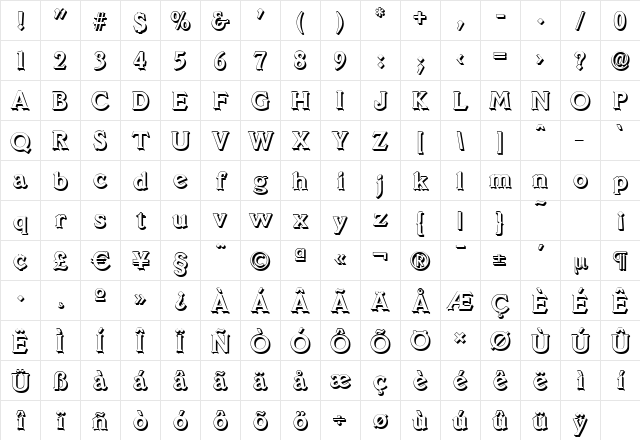
VeracruzShadow Bold
VeracruzShadow Family
Complete VeracruzShadow Bold glyph index. Displaying only characters natively supported by VeracruzShadow Bold font.
Design Context for VeracruzShadow
VeracruzShadow is built around its visual character rather than neutral utility - its distinctive forms are designed to make an impression at display sizes. Its bold stroke weight gives it real presence on the page.
Font Pairing: Pair with a clean neutral sans-serif for body copy to let VeracruzShadow's character lead without overwhelming the composition.
Pro Tip: Use VeracruzShadow exclusively at display sizes - it was designed to be seen, not read at length. Let a neutral companion handle body copy.